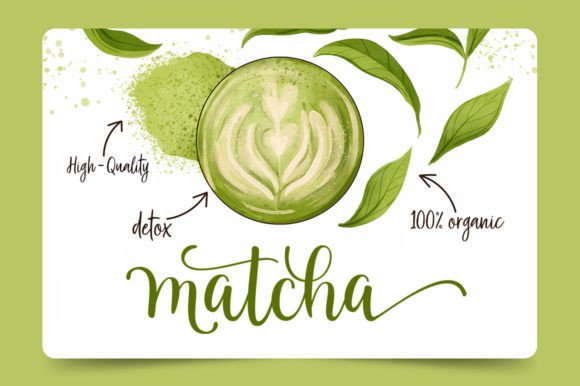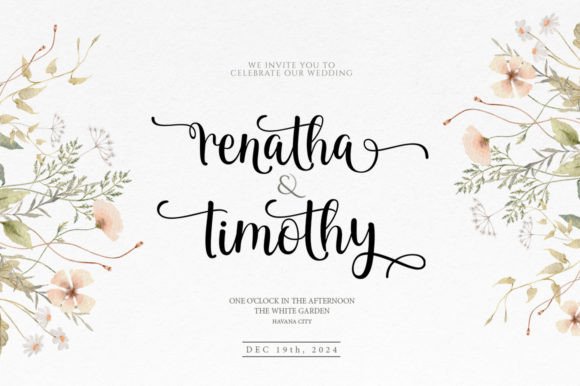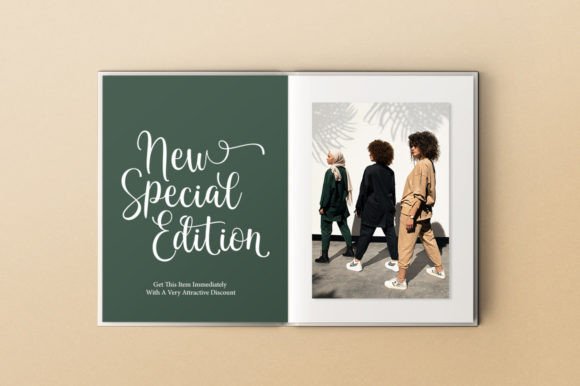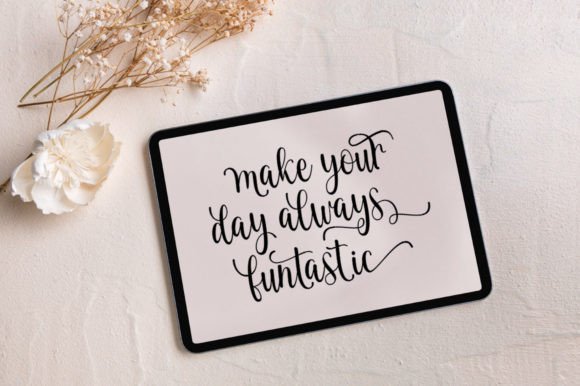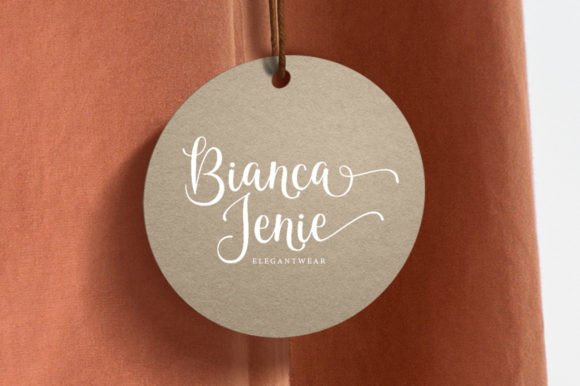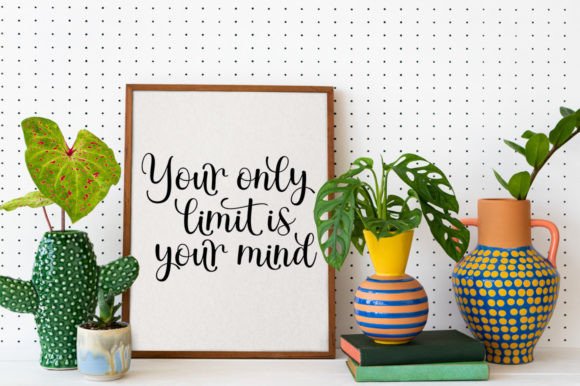
Introducing Daylight Font: Elevate Your Designs with Elegance and Sophistication
In the world of typography, a font can make or break the aesthetic of a design. For those seeking a touch of elegance and class, Daylight Font is an exquisite choice. This lovely and delicate script font is specifically crafted for designers and crafters who desire a beautiful and refreshing look for their projects. In this article, we’ll dive into the features, benefits, and uses of Daylight Font, and explore how it can elevate your designs to new heights.
The Essence of Daylight Font
Daylight Font is a script font that embodies the perfect blend of sophistication and charm. Its delicate strokes and elegant curves make it an ideal choice for designs that require a touch of refinement. Whether you’re working on a wedding invitation, a branding project, or a digital platform, Daylight Font is sure to impress. The font’s unique characteristics include:
- Delicate and elegant script style
- Perfect for designs that require a touch of sophistication
- Beautiful and refreshing look
- Suitable for various design projects, including weddings, branding, and digital platforms
Key Features of Daylight Font
So, what makes Daylight Font stand out from the rest? Here are some of its key features:
- Unique Letterforms: Daylight Font boasts unique and intricate letterforms that add a touch of personality to your designs.
- High-Quality Resolution: The font is designed to ensure high-quality resolution, making it perfect for both print and digital applications.
- Easy to Read: Despite its delicate nature, Daylight Font is surprisingly easy to read, making it suitable for body text and headlines.
- Multilingual Support: The font supports multiple languages, allowing you to create designs for a global audience.
Benefits of Using Daylight Font
So, why choose Daylight Font for your designs? Here are some benefits you can expect:
- Elegance and Sophistication: Daylight Font adds a touch of elegance and sophistication to your designs, making them stand out from the crowd.
- Versatility: The font is versatile and can be used for a wide range of design projects, from weddings and branding to digital platforms.
- Time-Saving: With Daylight Font, you can create stunning designs in no time, thanks to its ease of use and high-quality resolution.
- Unique Designs: The font’s unique letterforms ensure that your designs are one-of-a-kind and visually appealing.
Using Daylight Font in Your Designs
Now that we’ve explored the features and benefits of Daylight Font, let’s discuss how to use it in your designs. Here are some tips:
- Pair it with Bold Fonts: Pair Daylight Font with bold fonts to create a striking contrast and add visual interest to your designs.
- Use it for Headlines and Titles: Daylight Font is perfect for headlines and titles, where its elegant and delicate nature can shine.
- Experiment with Colors: Experiment with different colors to find the perfect match for your design and make Daylight Font pop.
- Play with Ligatures: Take advantage of Daylight Font’s ligatures to add a touch of personality to your designs.
In conclusion, Daylight Font is a lovely and delicate script font that exudes elegance and class. Its unique features, benefits, and versatility make it an excellent choice for designers and crafters seeking to elevate their designs. Whether you’re working on a wedding invitation, a branding project, or a digital platform, Daylight Font is sure to impress. So, why not give it a try and experience the magic of Daylight Font for yourself?